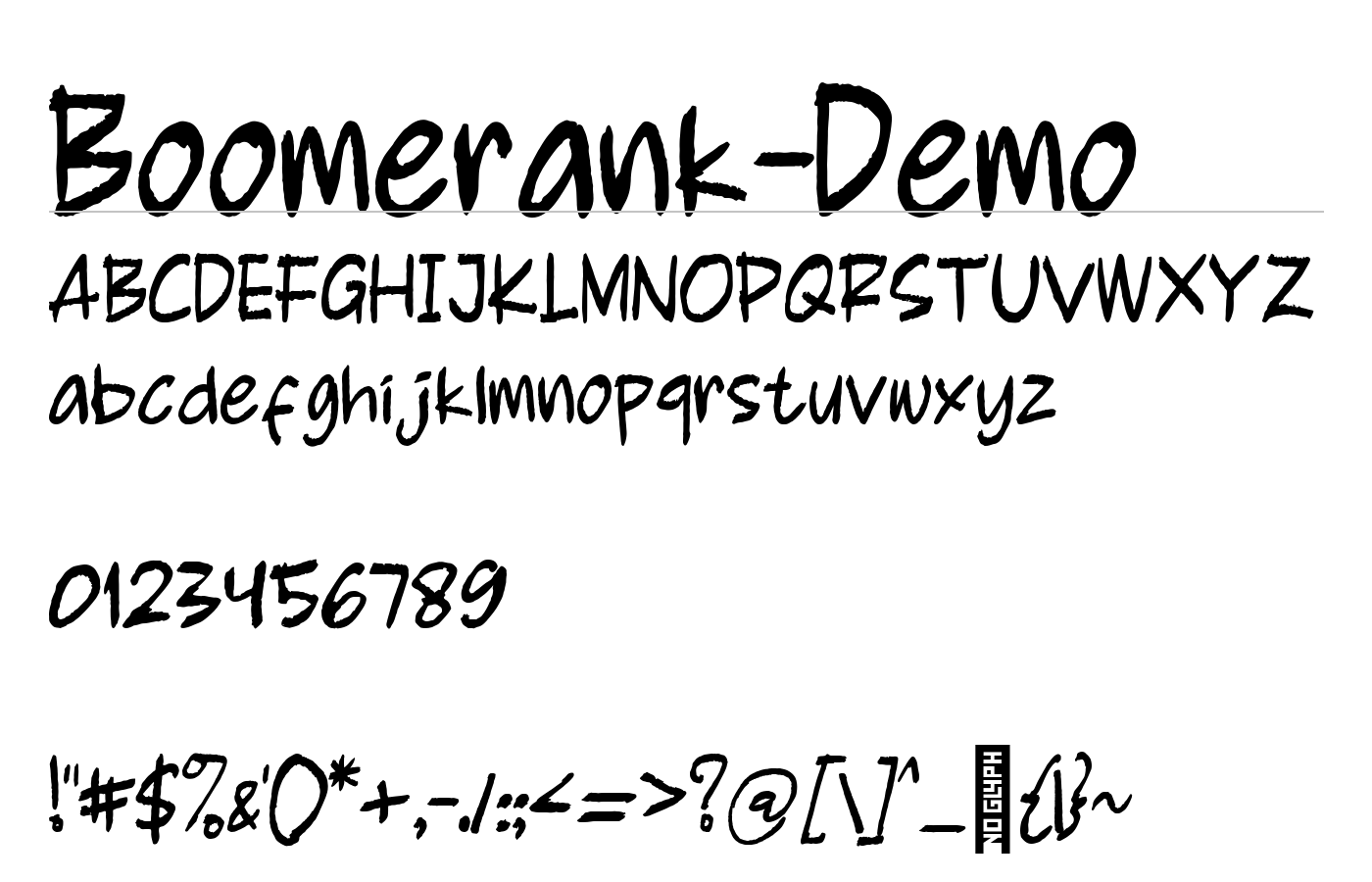
Boomerank-Demo is a casual, handwritten sans-serif font with a playful and informal vibe. Its irregular, brush-like strokes and moderate x-height give it a lively and approachable feel, making it ideal for creative projects, personal branding, and fun headlines. This font works well where a relaxed and friendly tone is desired, such as in social media graphics, children’s content, or casual invitations.
Boomerank-Demo Font